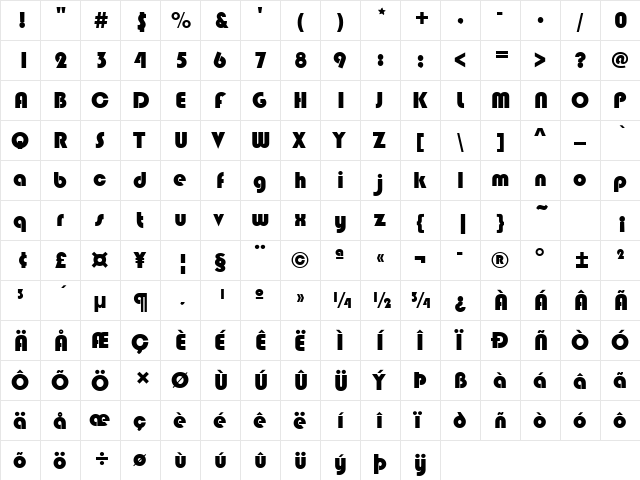
Bauhaus 93 Regular
| Foundry | URW++ |
Design Context for Bauhaus 93 Typeface
Bauhaus 93 is a composed and adaptable typeface that performs quietly and consistently across a wide range of design contexts.